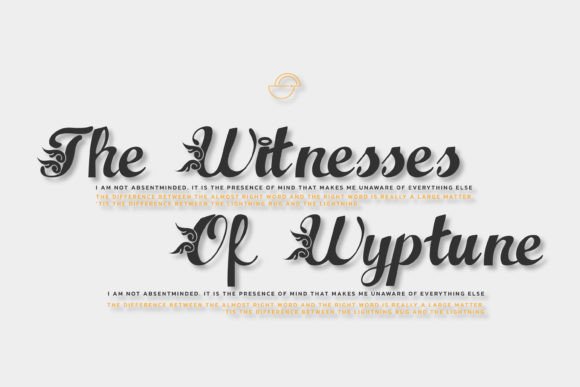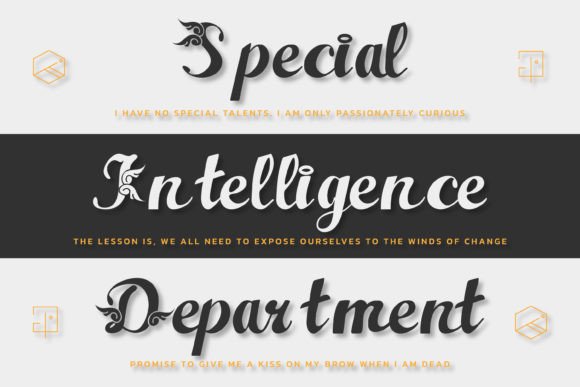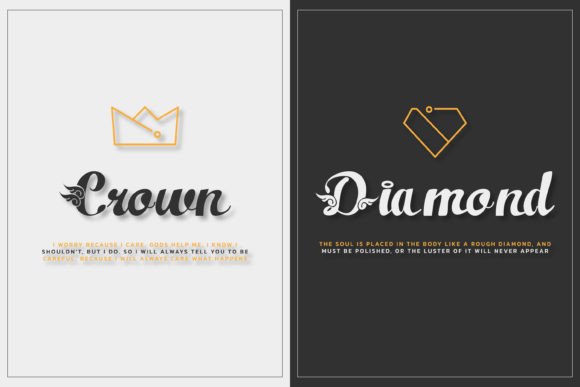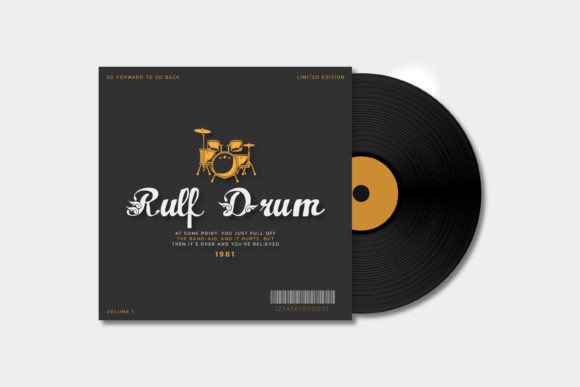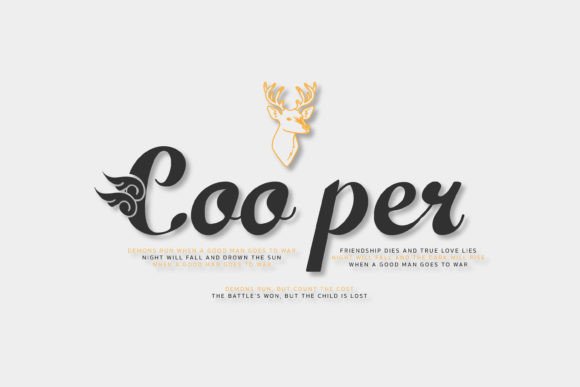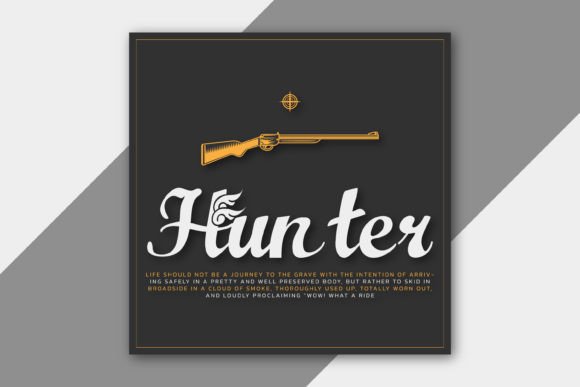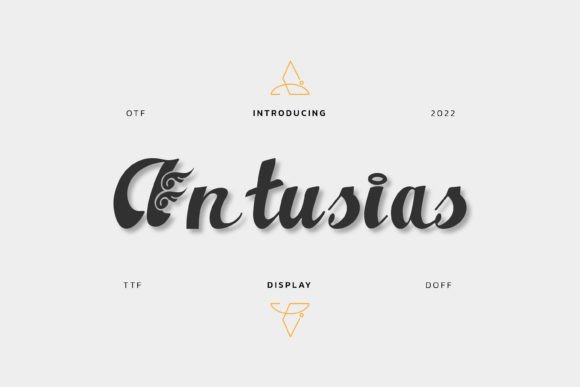
Introducing Antusias Font: Elevate Your Designs with Style and Boldness
In the world of typography, a font can make or break a design. It’s the foundation upon which creativity is built, and the right choice can elevate a project from ordinary to extraordinary. For designers and crafters looking to add a touch of sophistication and boldness to their work, Antusias Font is an exceptional choice. This stylish, cool, and bold script font is masterfully designed to become a true favorite, offering the potential to bring each of your creative ideas to the highest level.
The Essence of Antusias Font
Antusias Font is not just any font; it’s a statement piece. Its stylish and bold script is carefully crafted to add a touch of elegance and sophistication to any design. Whether you’re working on a branding project, a website, or a craft, this font is designed to make your work stand out. Its unique and modern aesthetic ensures that your designs are not only visually appealing but also convey a sense of professionalism and creativity.
Key Features of Antusias Font
- Stylish and Bold Design: Antusias Font boasts a stylish and bold script that is sure to capture attention. Its unique design elements make it perfect for headlines, titles, and any design where you want to make a statement.
- Versatility: This font is incredibly versatile, making it suitable for a wide range of projects. From digital designs like websites and social media graphics to print materials such as brochures and posters, Antusias Font adapts seamlessly.
- Ease of Use: Designed with the user in mind, Antusias Font is easy to integrate into your projects. Whether you’re a seasoned designer or just starting out, you’ll find it straightforward to use and manipulate.
- High-Quality: The font is of high quality, ensuring that it looks crisp and clear in any size. This is particularly important for designs that will be viewed on various devices or printed in different sizes.
Who Can Benefit from Antusias Font?
Antusias Font is a valuable resource for a wide range of professionals and hobbyists. Here are some of those who can benefit the most:
- Graphic Designers: For graphic designers looking to add a touch of elegance and boldness to their designs, Antusias Font is an excellent choice. It’s perfect for branding projects, advertisements, and any design that requires a standout font.
- Web Designers: Web designers can use Antusias Font to create stunning website headers, titles, and even menu items. Its readability on digital screens makes it a practical choice for web projects.
- Crafters and DIY Enthusiasts: For crafters and DIY enthusiasts who love creating their own materials for projects, Antusias Font offers a professional touch. It’s ideal for making custom signs, cards, and other craft projects.
- Marketing and Advertising Professionals: Marketing and advertising professionals can leverage Antusias Font to create compelling and attention-grabbing headlines and titles for their campaigns.
How to Use Antusias Font Effectively
To get the most out of Antusias Font, consider the following tips:
- Pair it with Complementary Fonts: For maximum impact, pair Antusias Font with simpler fonts that complement its style. This contrast will help your design stand out and ensure readability.
- Use it for Headers and Titles: Antusias Font is perfect for headers and titles where you want to grab attention. Its boldness and style make it an excellent choice for these elements.
- Experiment with Colors and Sizes: Don’t be afraid to experiment with different colors and sizes. Antusias Font’s versatility means it can be used in various contexts, from large banners to smaller promotional materials.
| Font Name | Antusias Font |
| Author | inferno.type3 |
Antusias Font is a stylish, cool, and bold script font that has the potential to elevate your designs to new heights. Its unique design, versatility, and ease of use make it an invaluable resource for designers and crafters alike. Whether you’re looking to add a touch of sophistication to your projects or simply want a font that stands out, Antusias Font is an excellent choice. With its high-quality design and adaptability, it’s sure to become a favorite in your collection.